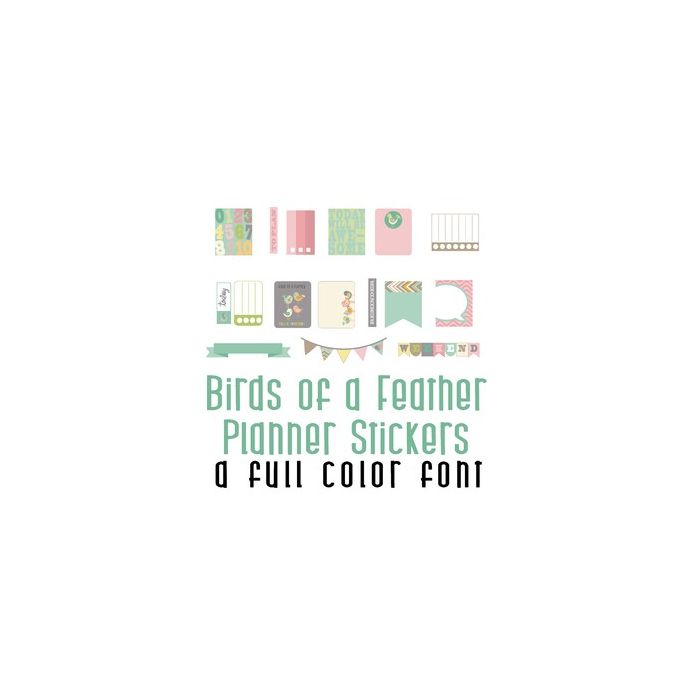
This adorable full-color doodlebat font features 52 Birds of A Feather Planner Stickers. Perfect for cards, crafts, gifts, decor, scrapbook pages, planner stickers, and more! Glyphs are A-Z and a-z